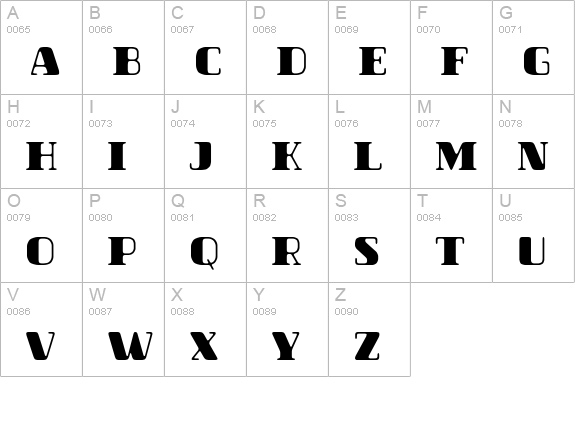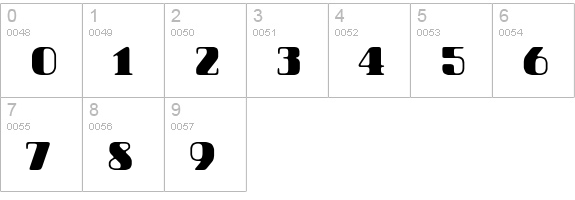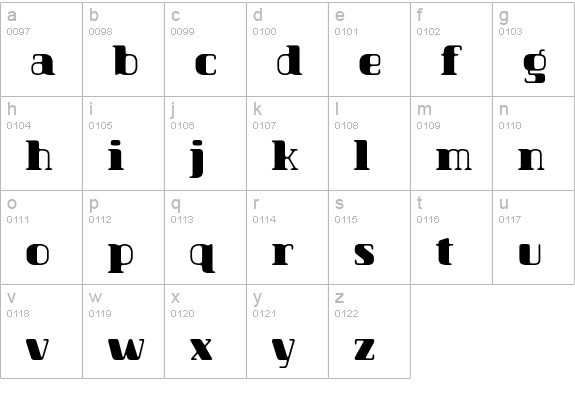
Hazelnut Black Font Details
Hazelnut Black is a maximum-weight, dramatic variant in the Hazelnut typeface family \xE2\x80\x94 well suited to maximum-impact headlines, posters, and packaging.
Hazelnut Black font is an exquisite display typeface that exudes elegance and sophistication. Its bold and distinctive strokes make a powerful statement, perfect for headlines, titles, and branding projects. The unique design of Hazelnut Black font combines modern elements with a touch of classic charm, creating a timeless appeal that will elevate any creative project. This versatile font is available for free download at FontsMarket.com, making it accessible to designers, artists, and creatives looking to add a touch of luxury to their work. With its sleek lines and sharp angles, Hazelnut Black font commands attention and adds a touch of refinement to any design. Whether used in print or digital formats, this font is sure to make a lasting impression on viewers and users alike. Elevate your designs with the timeless beauty of Hazelnut Black font today.